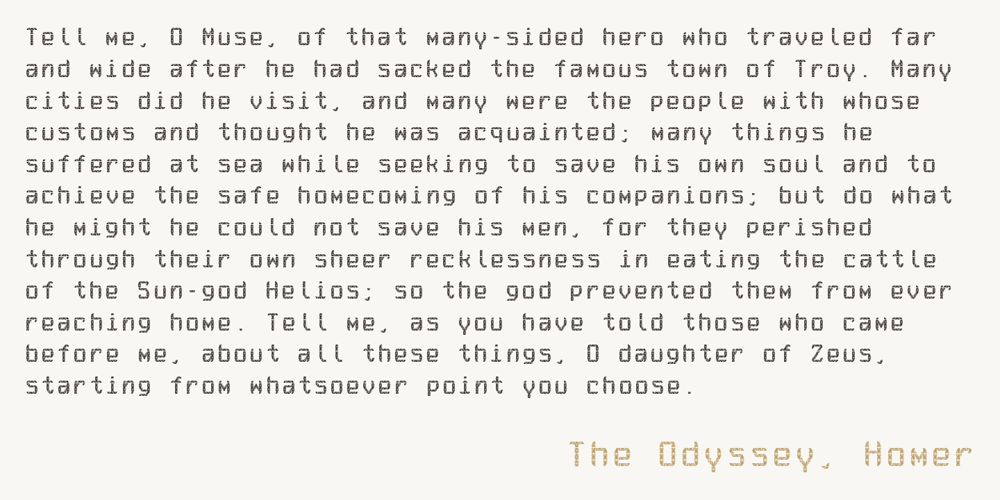
Monadic
Monadic font
Monadic Font Family was designed by Thoma Kikis and published by TEKNIKE. Monadic contains 9 styles and family package options. Monadic is a modern singular monospace display font. The typeface is made from groups of single basic triangular geometric units. Monadic is inspired by structured and organic geometry. The name is derived from the Ancient Greek μοναδικός (monadikós, “single”), from μονάς (monás, “a unit”); it is the adjective of monad, an elementary individual substance which reflects the order of the world and from which material properties are derived. Monadic is great for display work, logos, structures, architecture, technology, biology, sports, monograms, quotes, headings and posters.